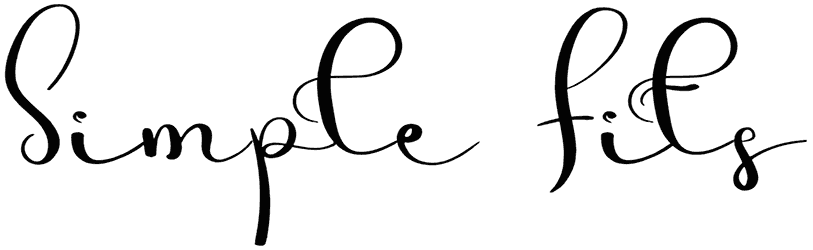
Simple Fits Font
Hear about something new, a script font with curly outward that makes your day. Simple Fits as a versatile handwritten font with a complete alphabet set arouses to increase your artwork awareness through its natural, friendly vibe.
Simple Fits is a thin lettered and graceful script font. Fall for its ravishing style and use it to create gorgeous wedding invitations, beautiful stationary art, eye-catching social media posts, and much more!